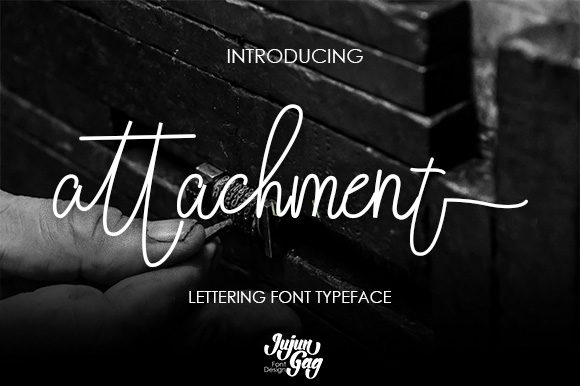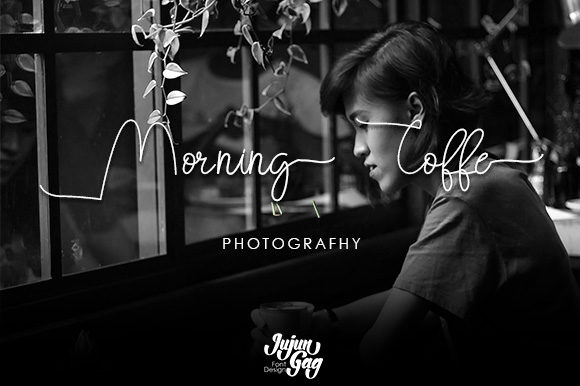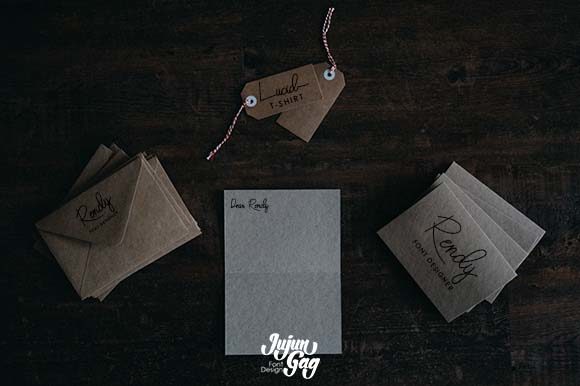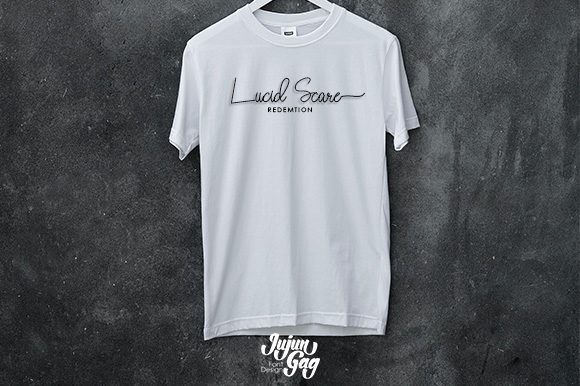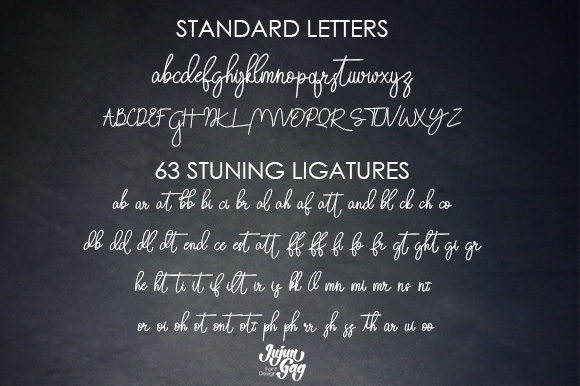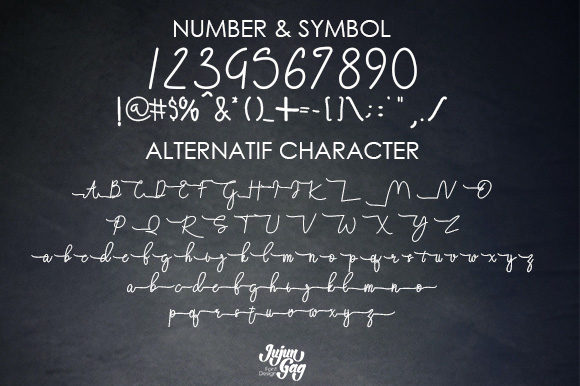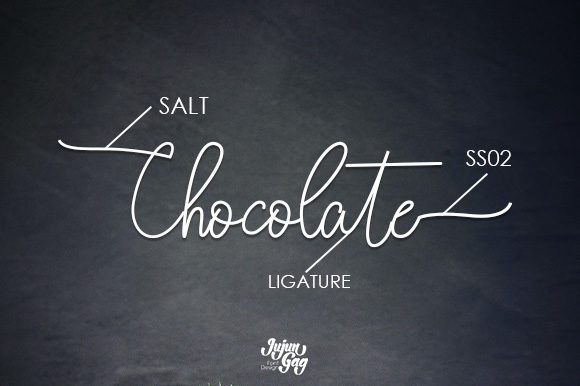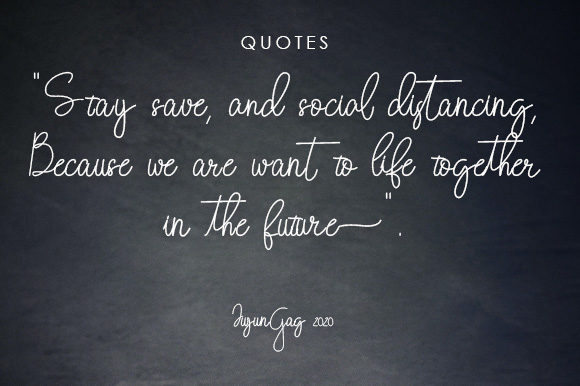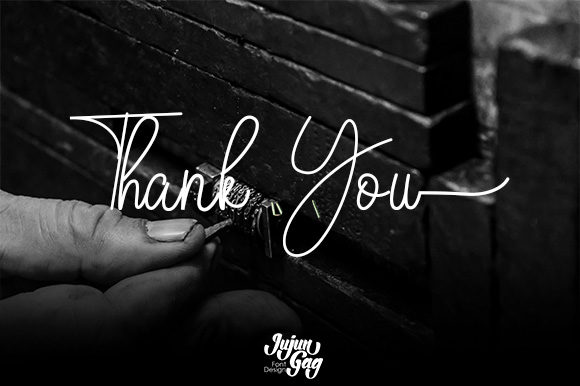
Attachment Font
About Attachment Font
Attachment feels equally charming and elegant. This stunning handwritten font is a stylish homage to classic calligraphy. Attachment is the perfect font for making original and outstanding designs.